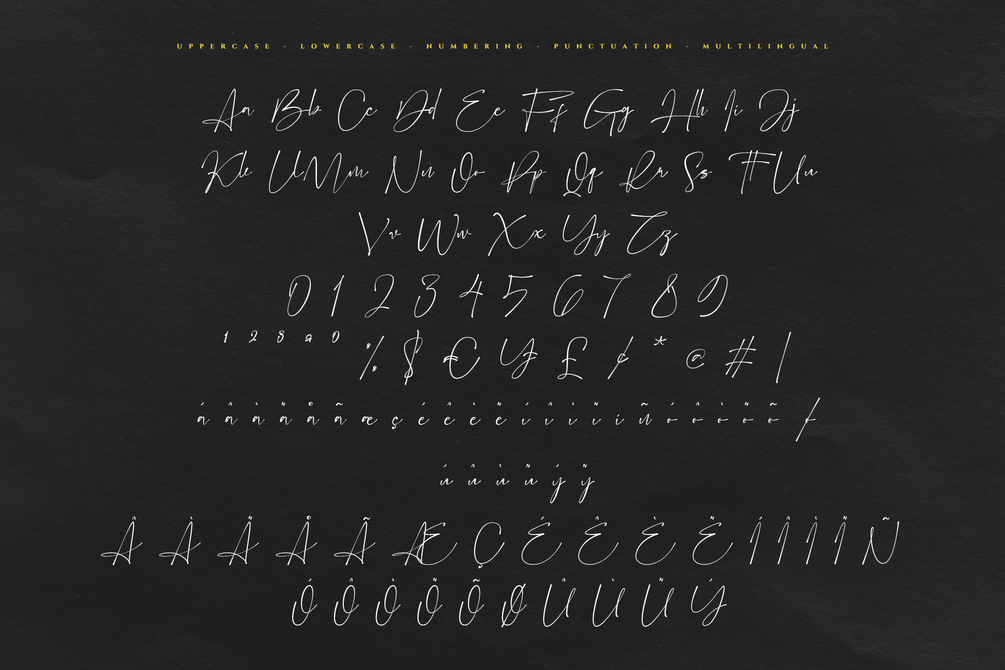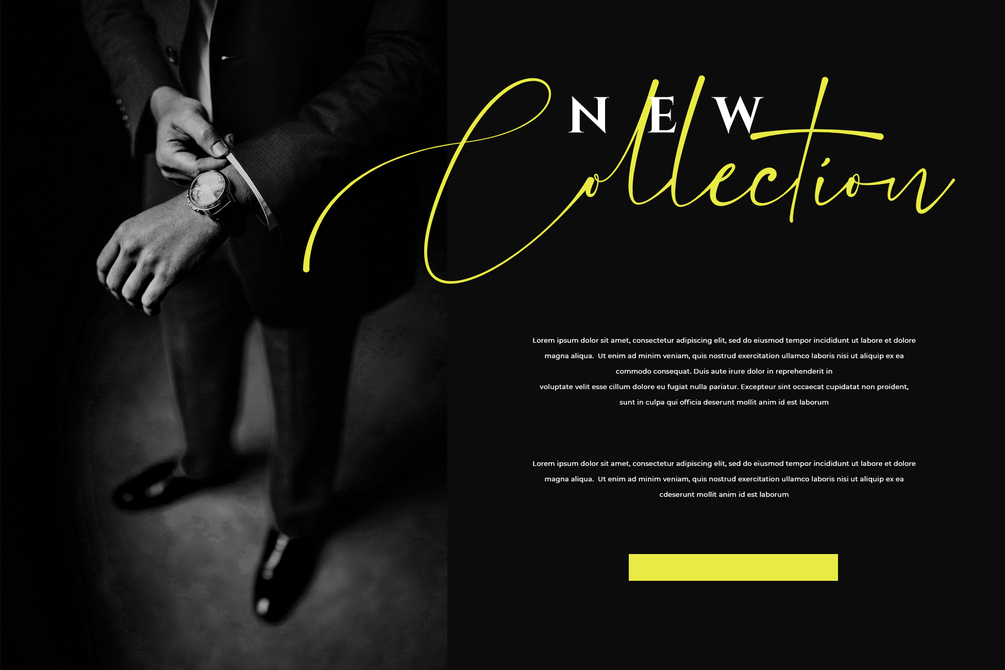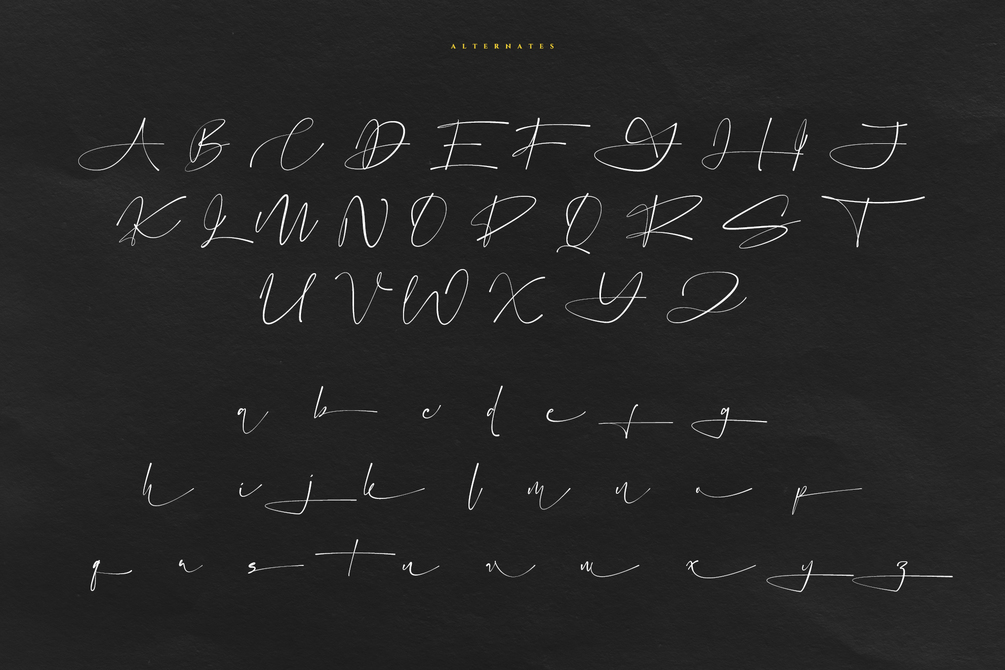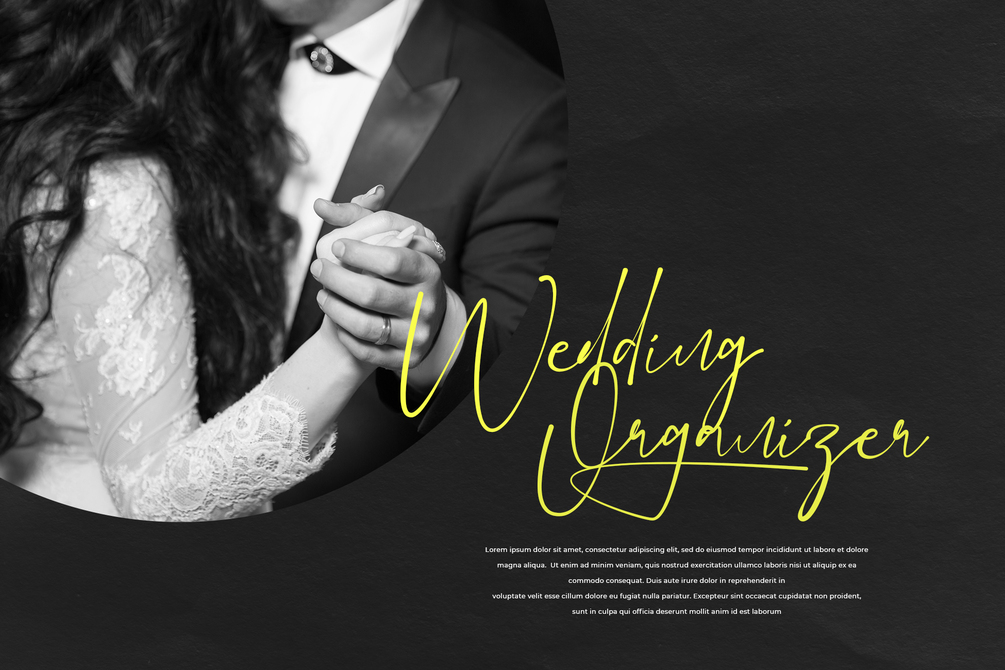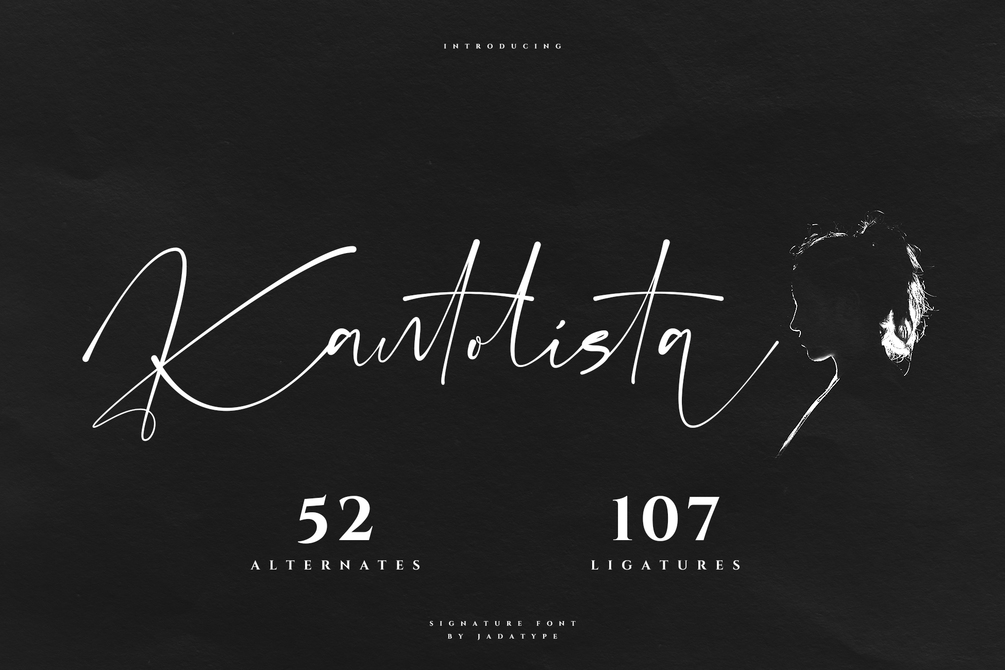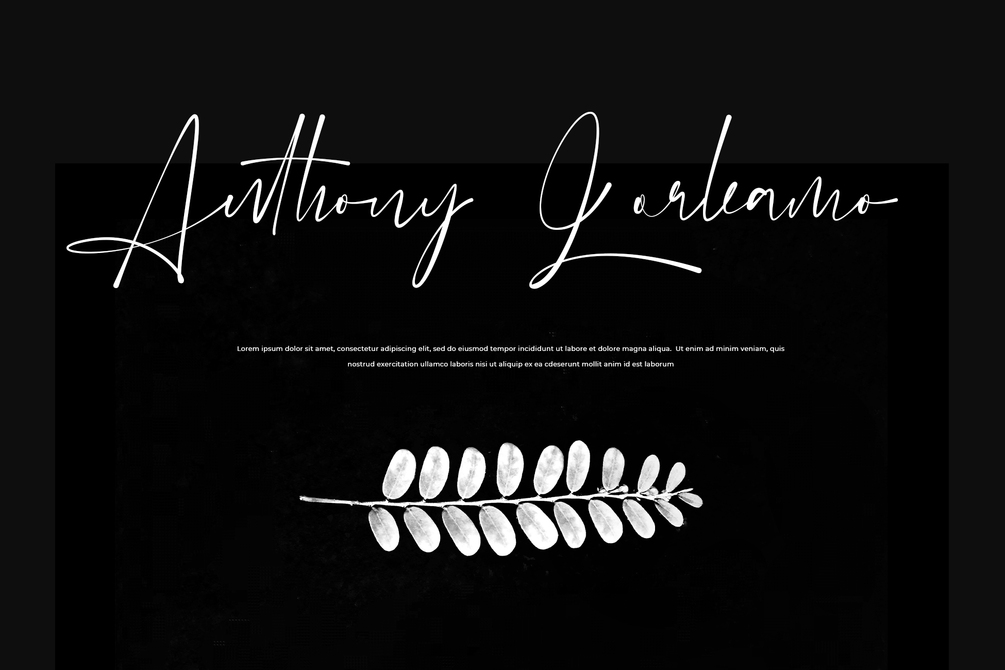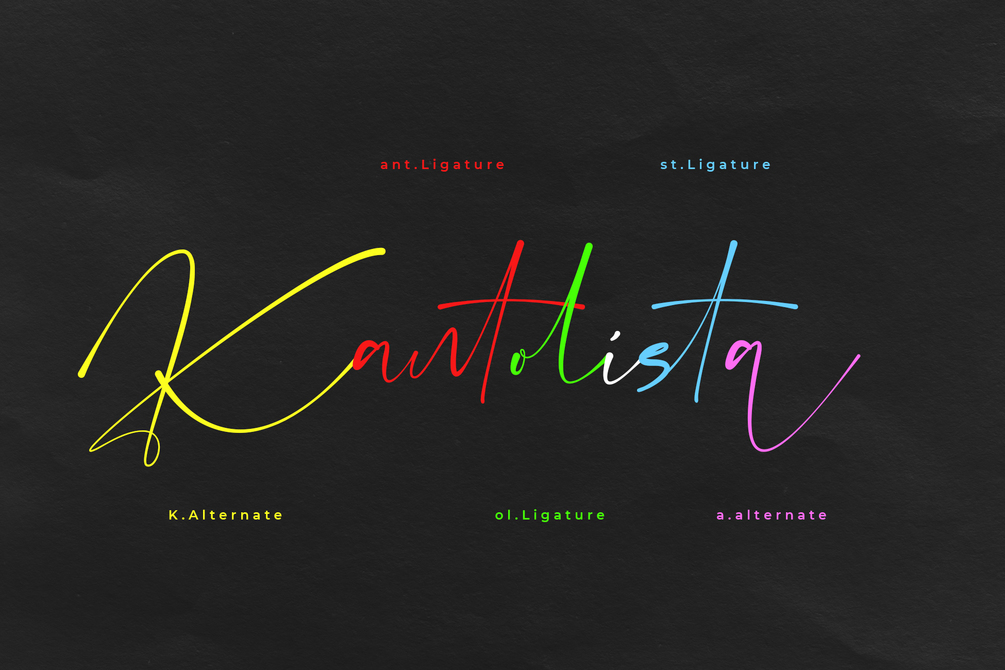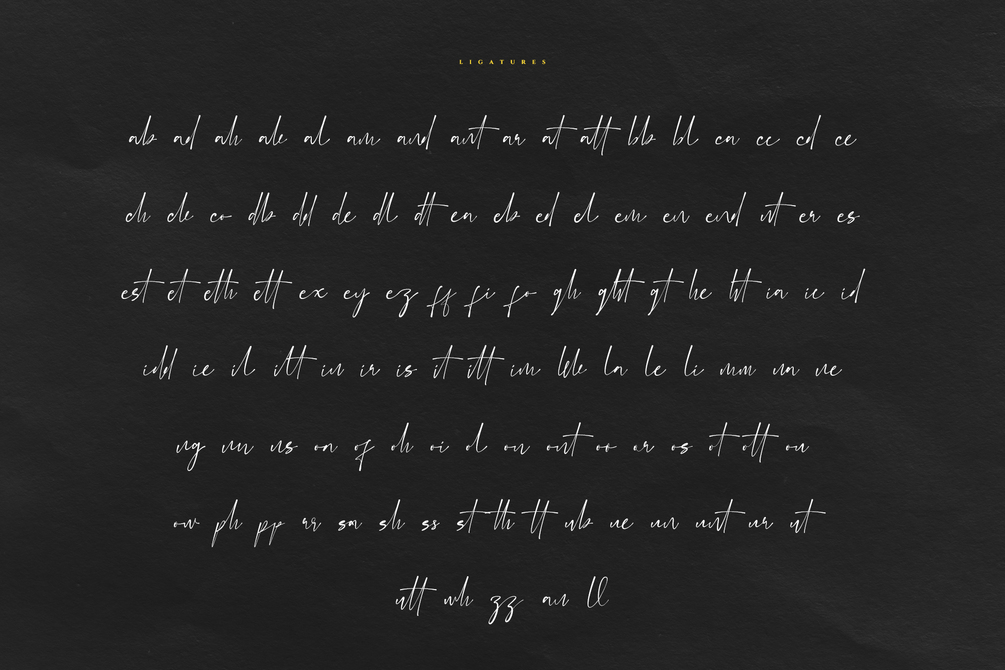
Kantolista Font
Kantolista is a signature font with a natural style. suitable for social media, logotype, products, advertisements, branding, wedding-theme and so on. contains standard English letters, numbers, punctuation, alternates, ligatures and several accents that support multilingualism.